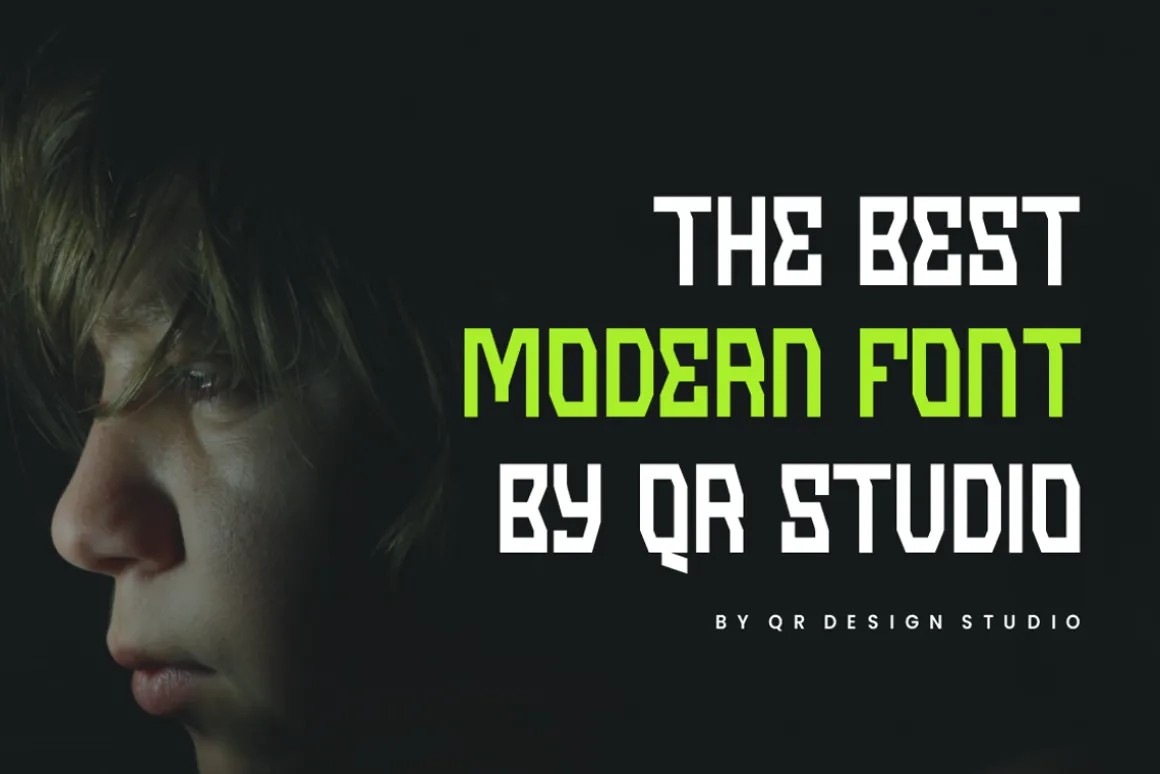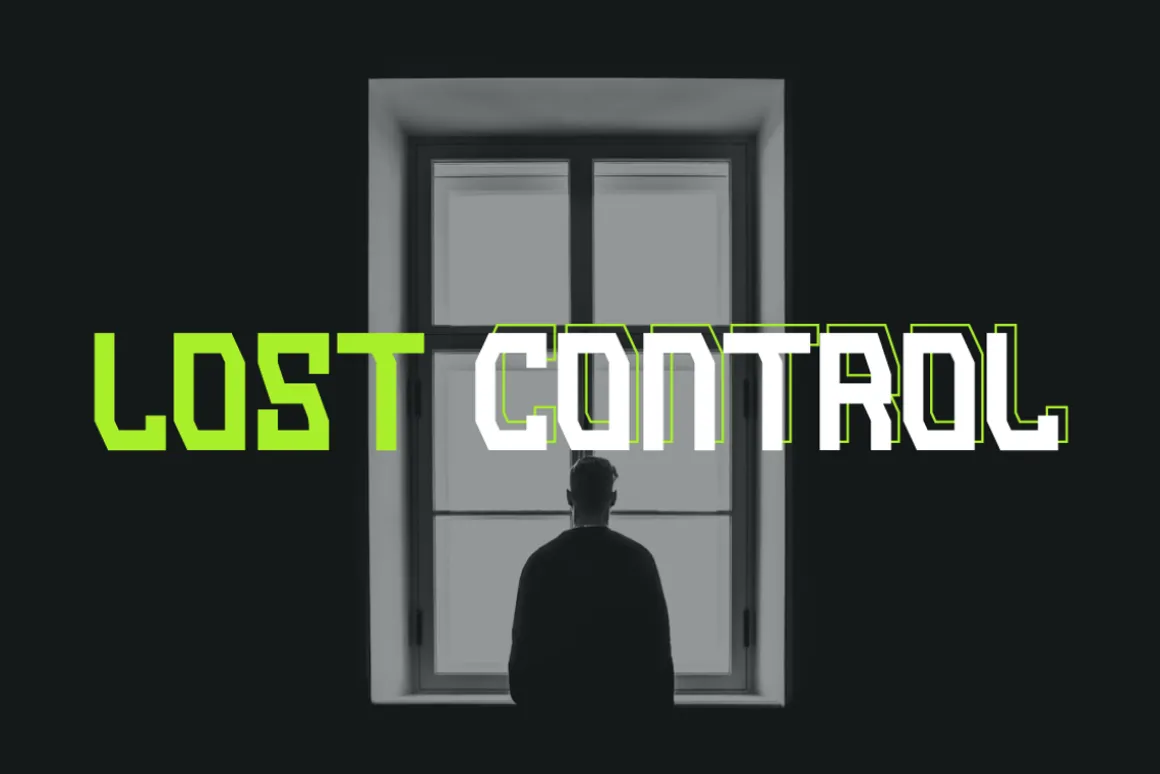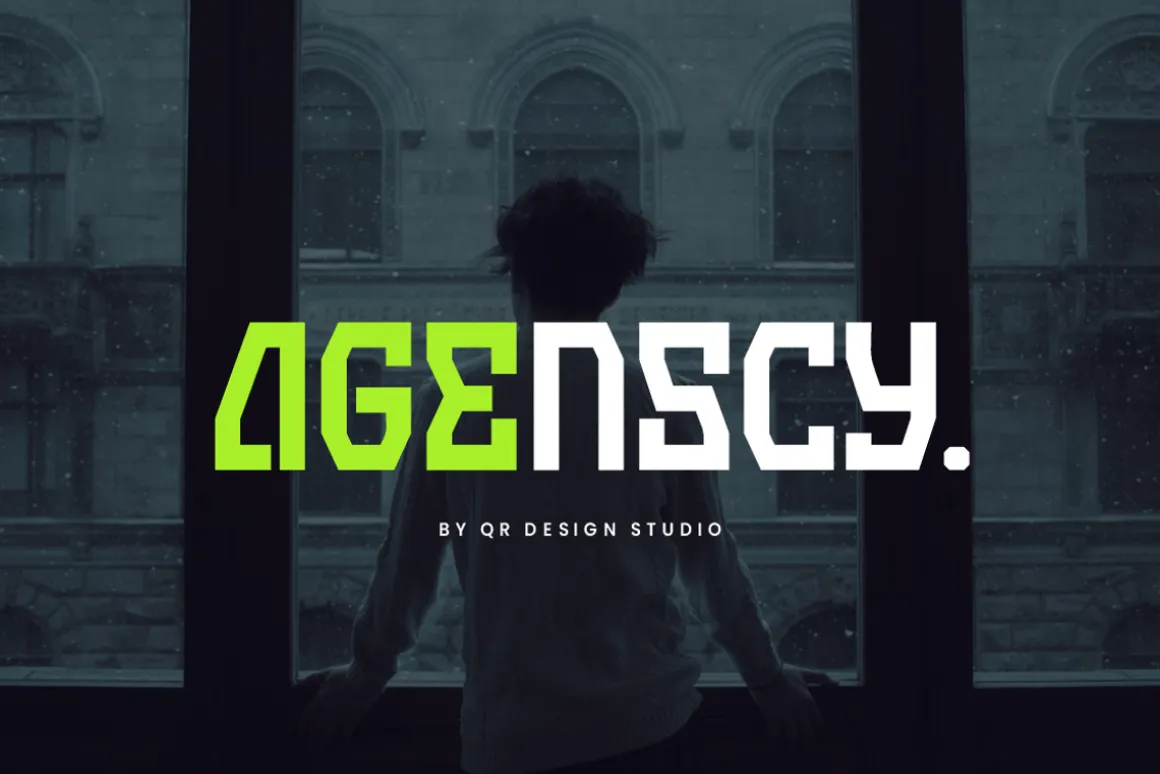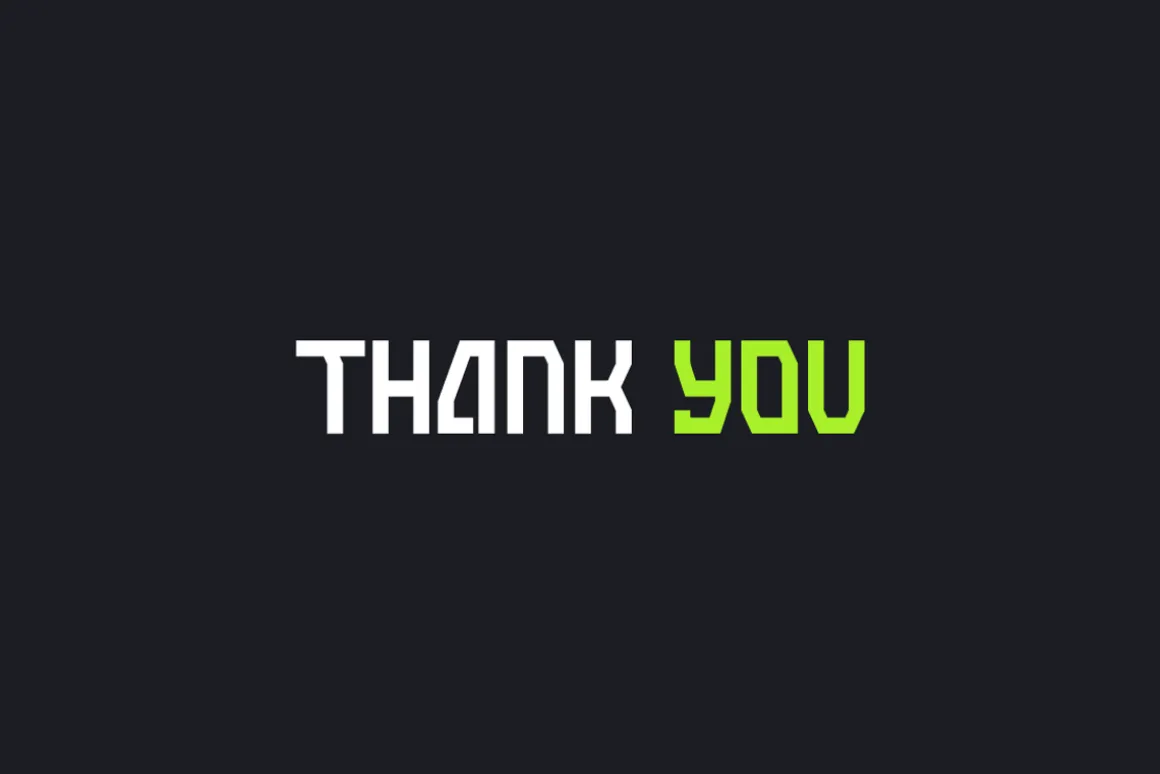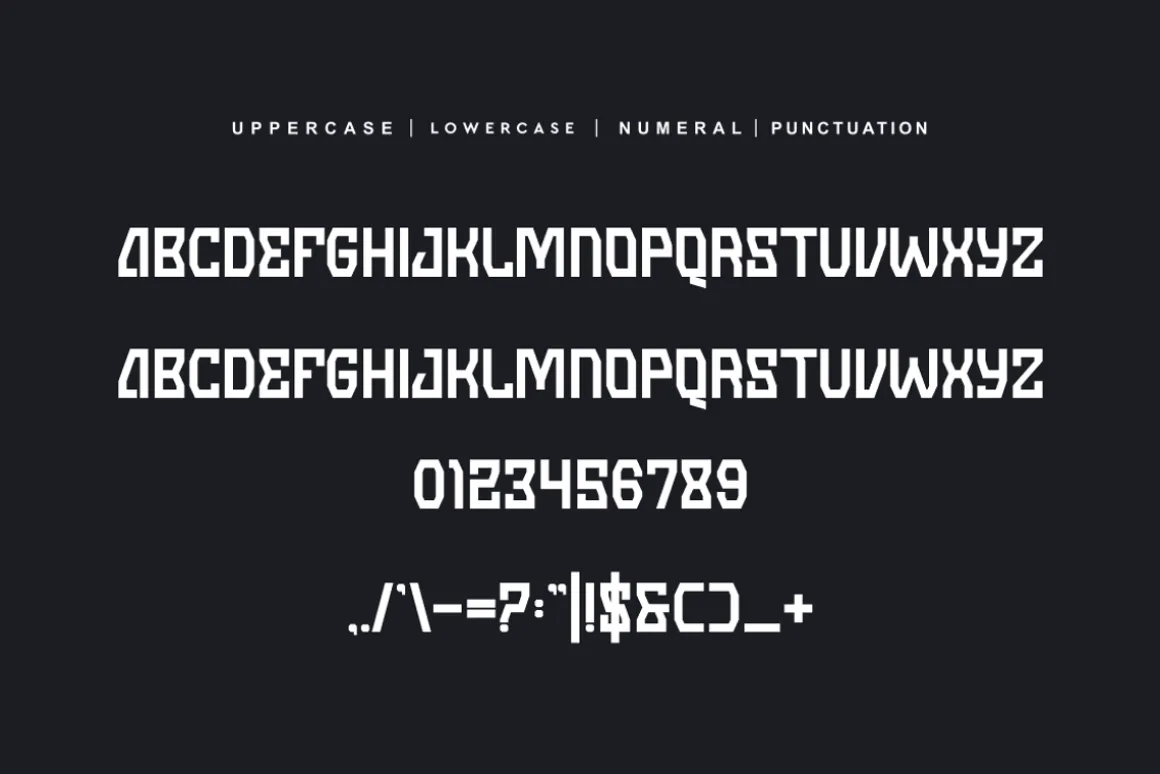
Agenscy Font is a bold and authentic display font.The font is suitable for any branding project like tech, poster, logo, sport, and many more.Outstanding in a wide range of contexts.